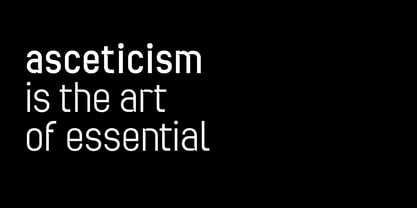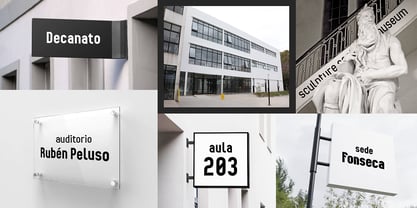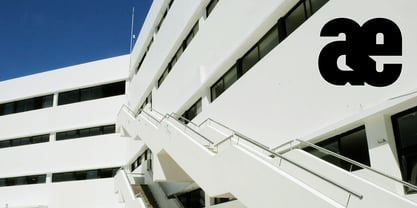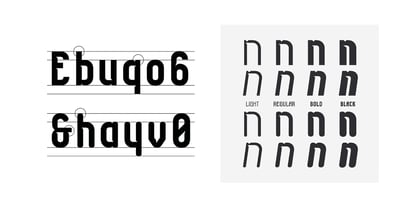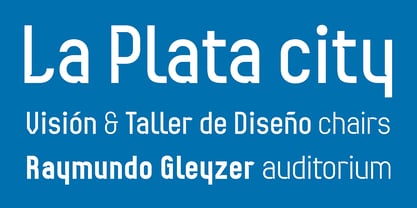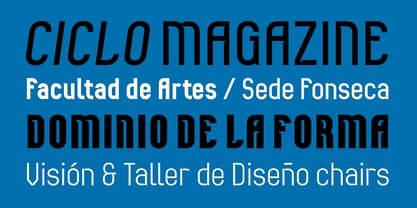
Ascetica
by Fabio Ares
Ascética is a font family with a geometric sans serif style, developed by professor Fabio Ares and the Typography Chair of National University of La Plata, Argentina, especially in commemoration of 60 years of design careers at the Faculty of Arts.
Its morphology is based on the formal proposals of Concrete Invention Art and the Ulm School, closely linked to the ideas that led to the creation and evolution of these careers.
The incorporation of ink traps suggests the idea of three-dimensionality and suggestively recall the impossible figures of Maurits Escher.
It currently has 8 variables, four of tone and four of inclination.
About Fabio Ares
Designer based in City Bell (Province of Buenos Aires, Argentina). Professor of the Typography Chair of the Faculty of Arts of the National University of La Plata and lecturer. His fonts are based on his historical research on printing and typographic uses in Argentina and used by organizations linked to heritage. Co-founder of the Historical Railway Typography project, he designs fonts based on the signs used by Argentine railways since 1857.The main objective of the works included in this foundry is that they transcend borders and be used in other latitudes as a way to vindicate Argentine visual culture. What is collected through the commercialization of the typefaces destined to finance the investigations.